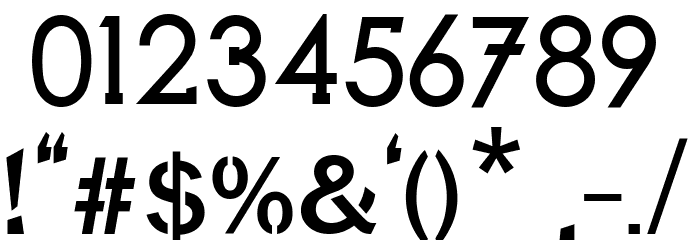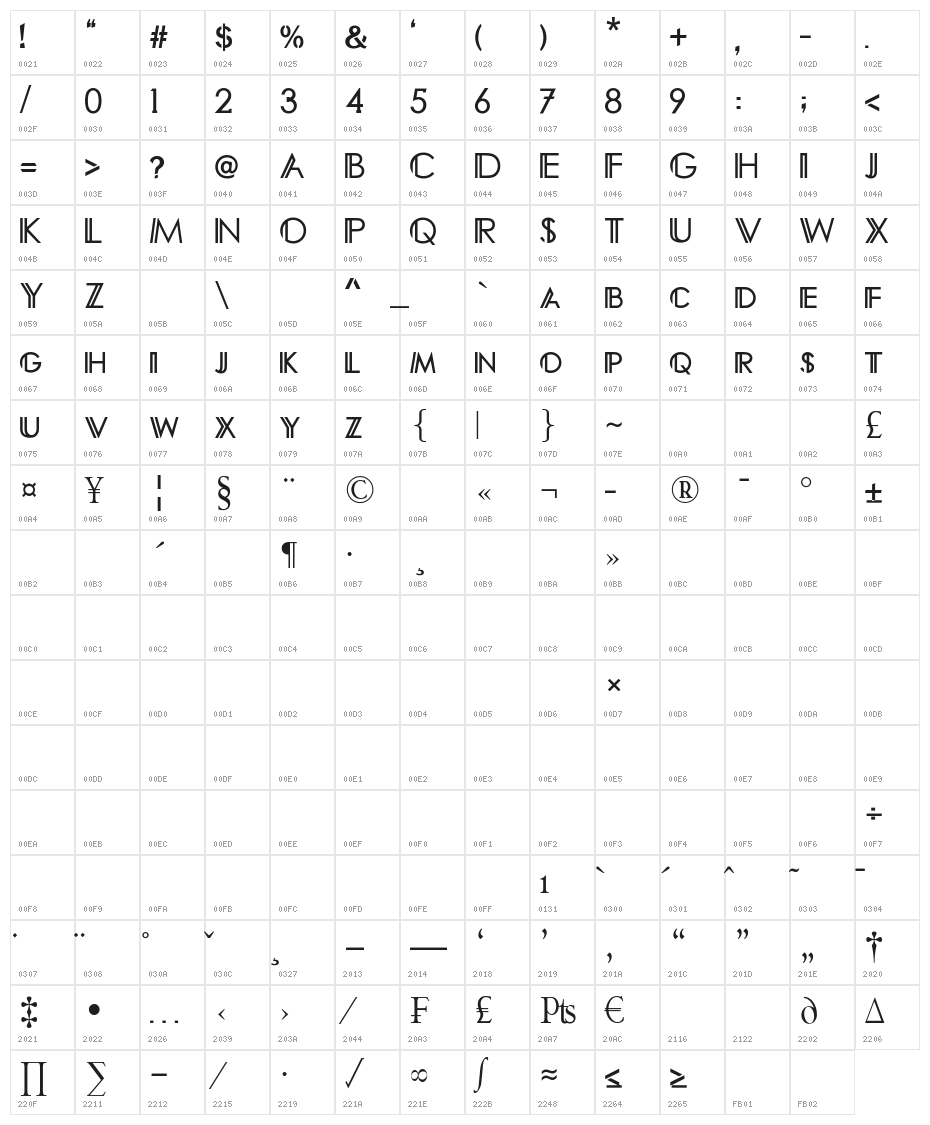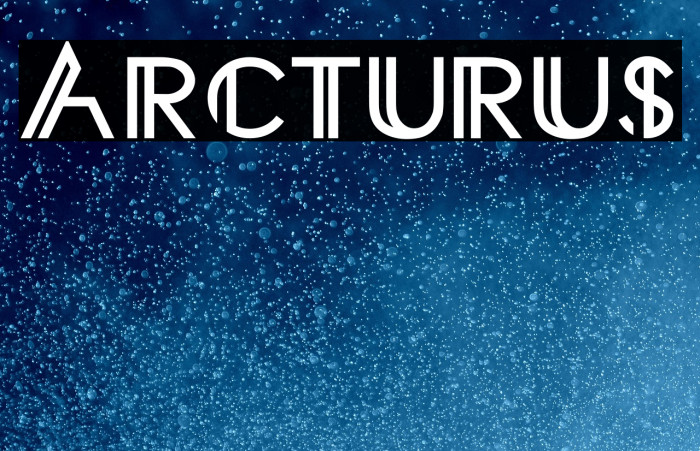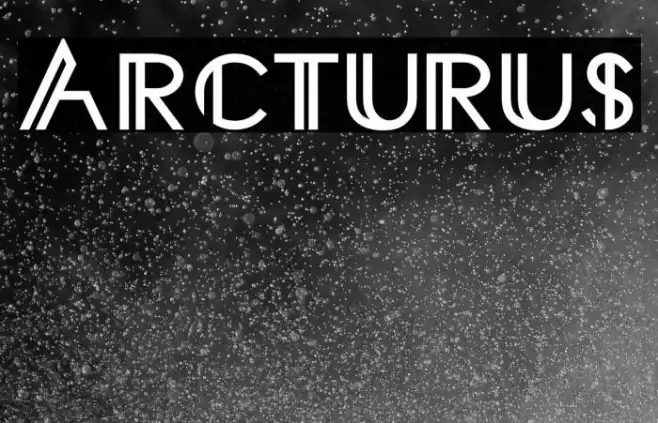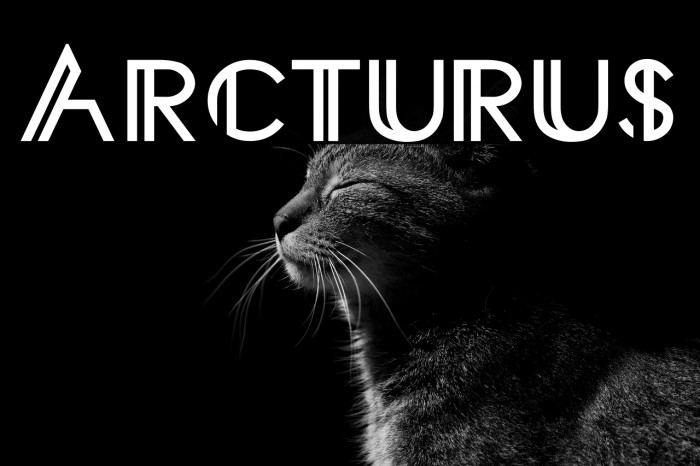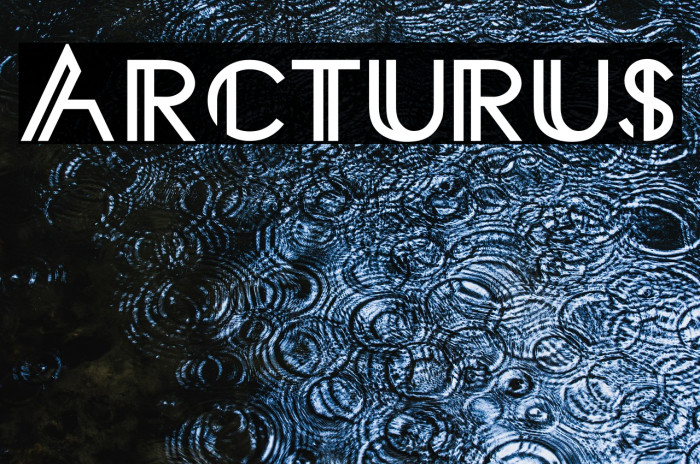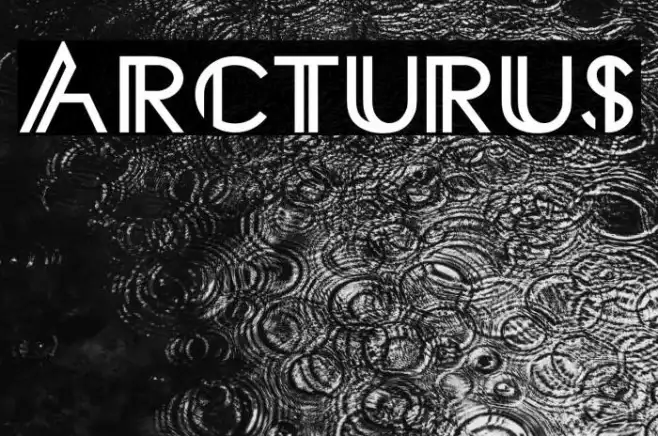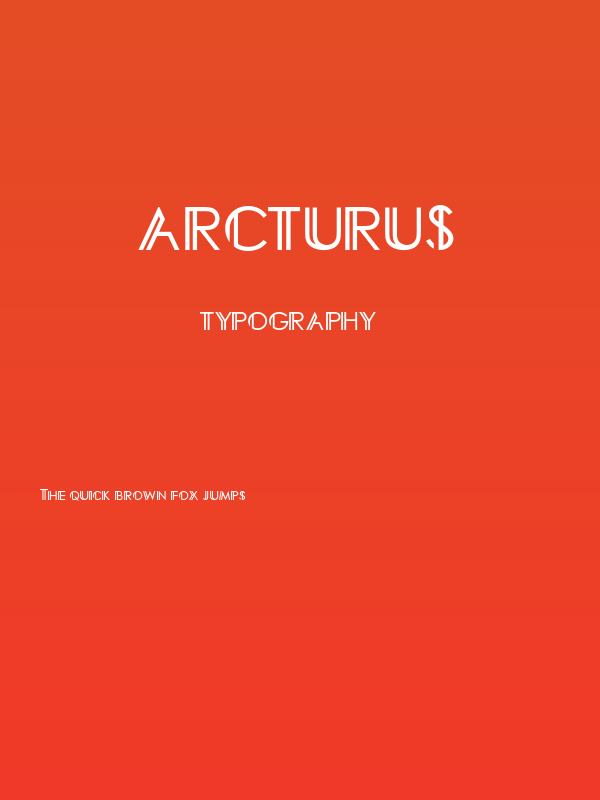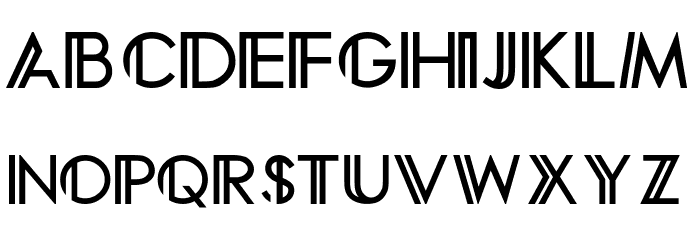
Arcturus Font
Arcturus Description
This font features a modern and geometric design with a distinct angular style. The uppercase letters are characterized by sharp edges and clean lines, creating a futuristic and sleek appearance. The lowercase letters maintain the same geometric aesthetic, offering consistency throughout the typeface. The numbers are bold and easily legible, following the same angular design principles. Special characters are well-integrated, maintaining the overall style. The font's unique design makes it suitable for projects that require a contemporary and cutting-edge look.